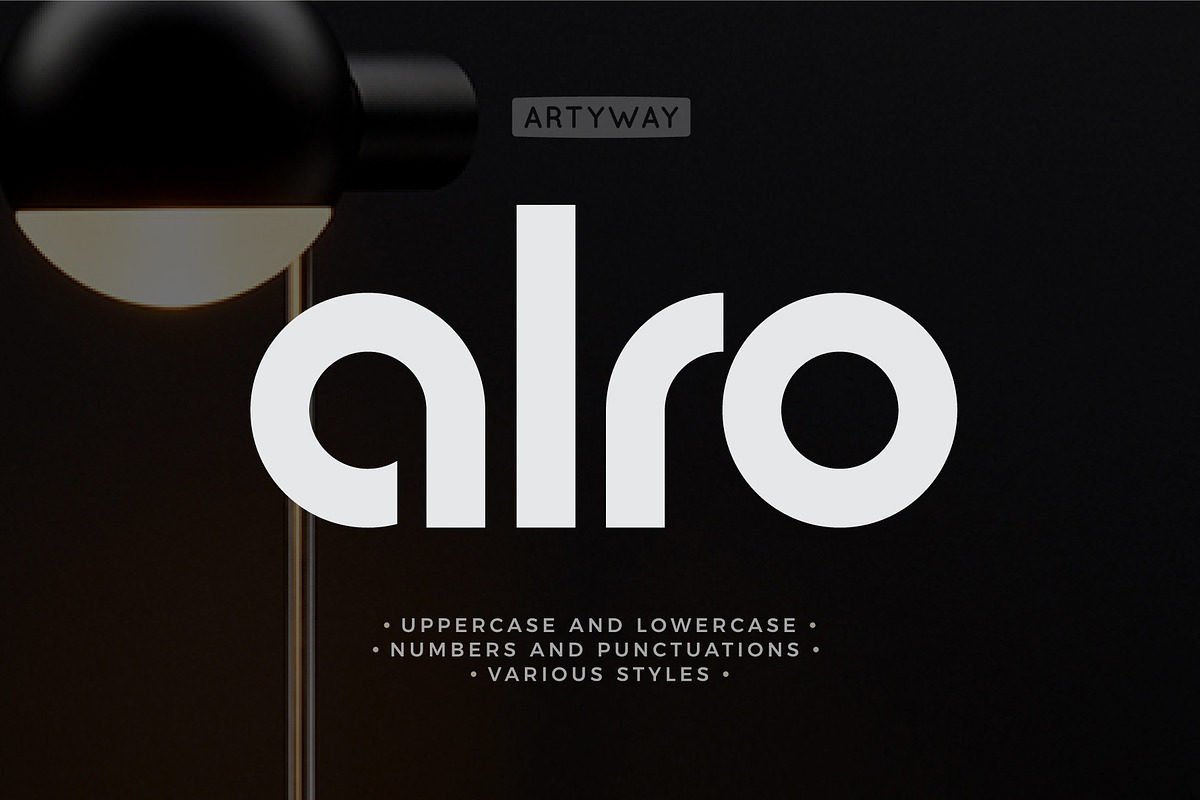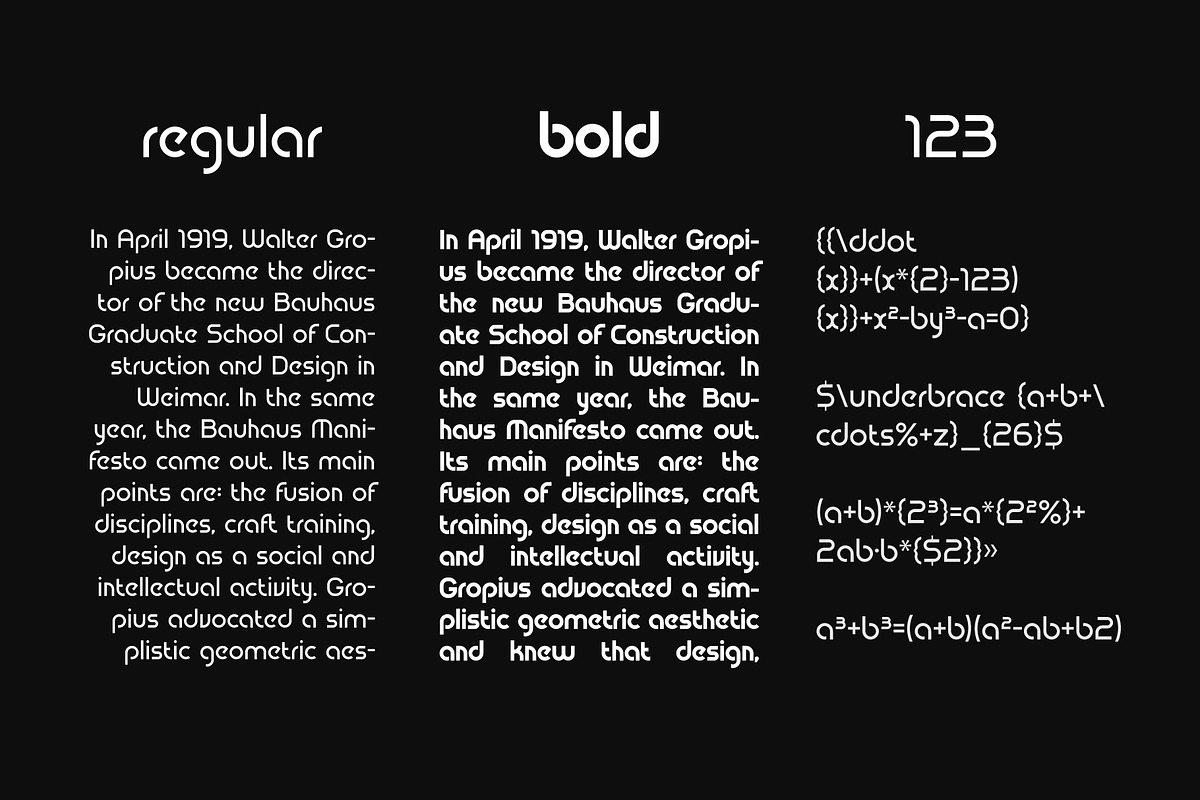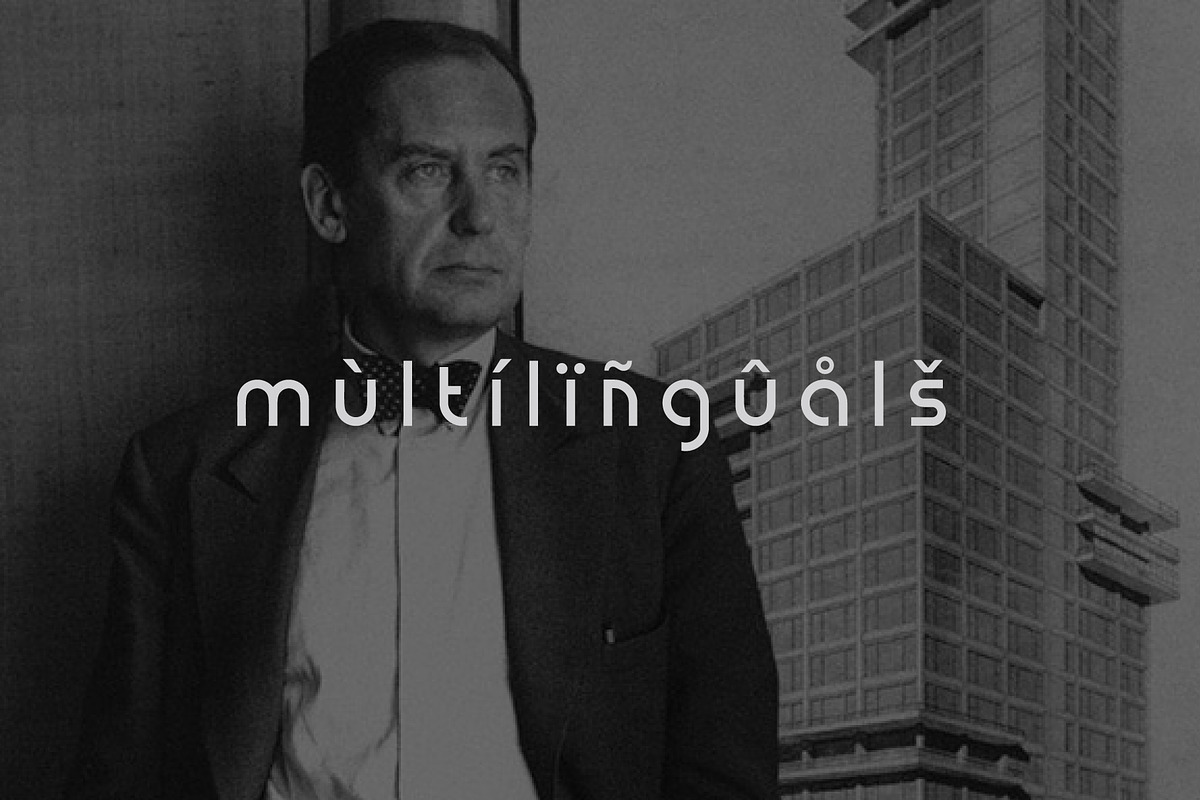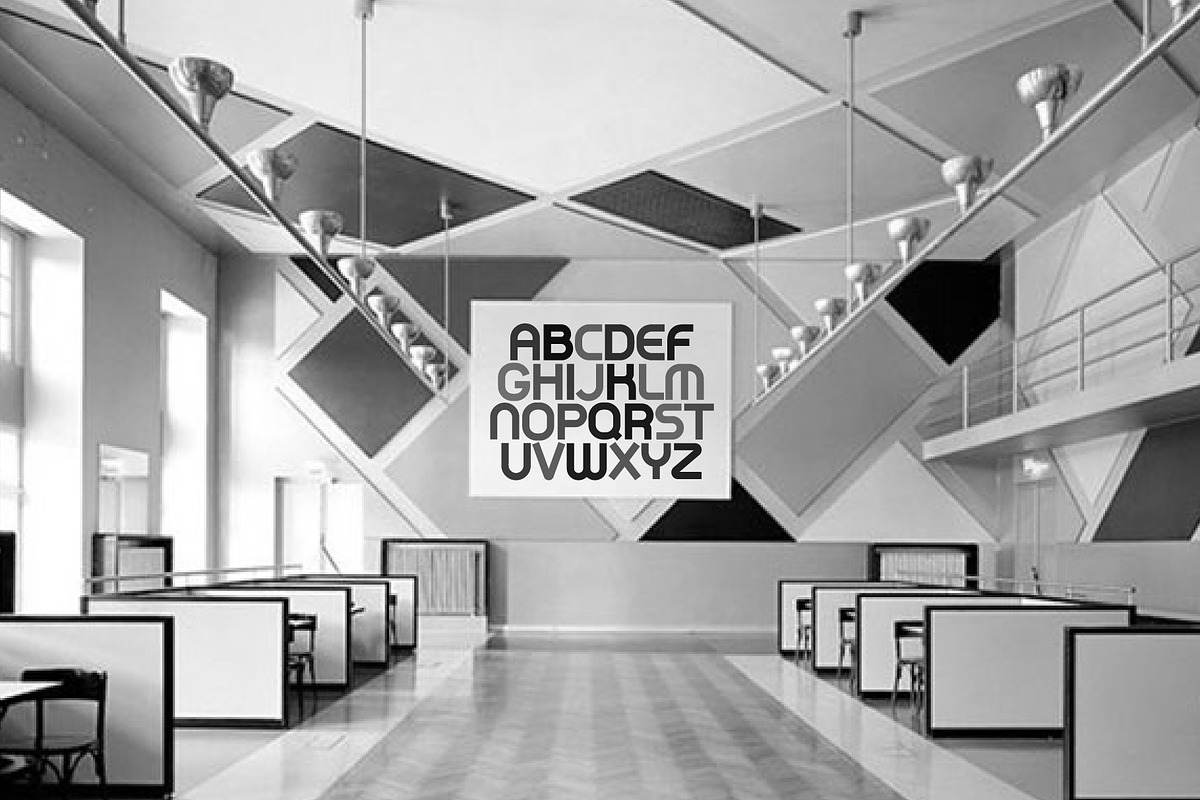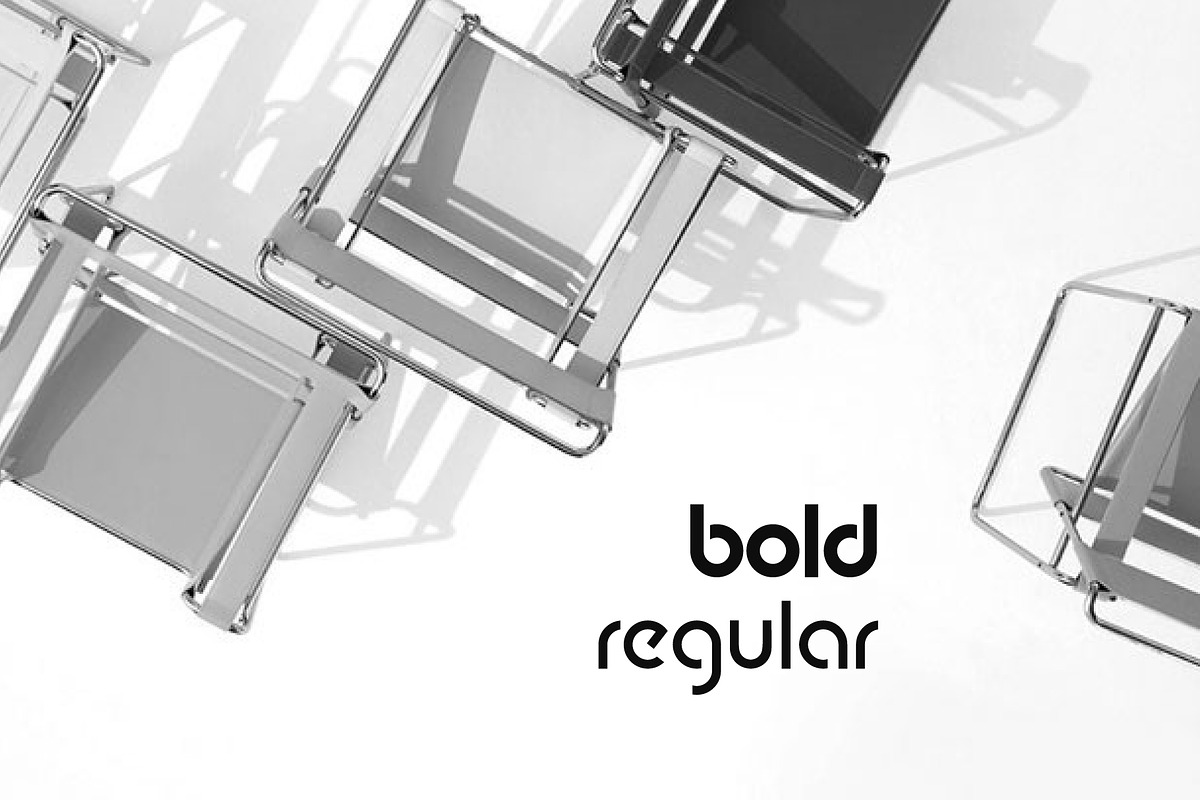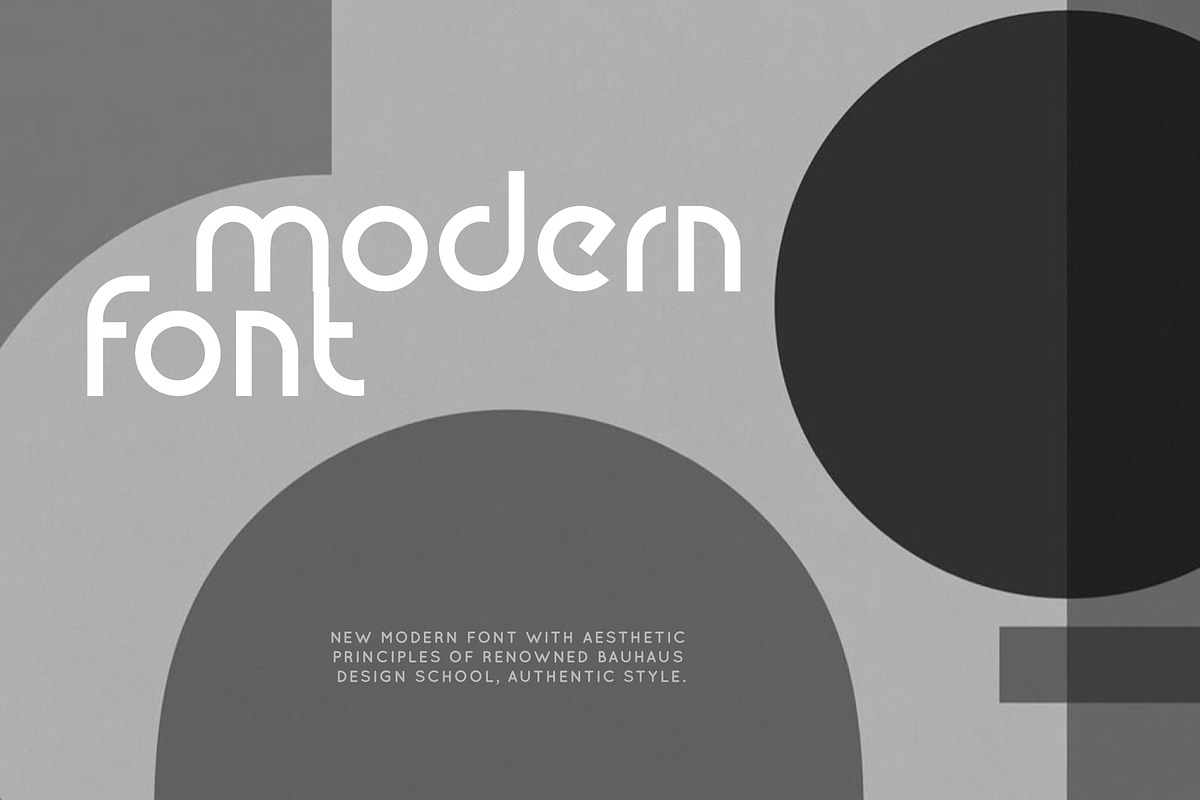
Alro Headline Font
Looking for the perfect rounded font for all your minimalist design concepts? Then grab this font with an elegant bauhaus style.
The font includes upper and lowercase letters with clean, rounded corners to instantly give designs that minimalist feel. You can quickly go from vintage to sci-fi in minutes. This minimal typeface comes in 2 styles that look amazing on body copy, logos, posters, headlines, books and magazine covers, brochures, as well as branding projects.
Use one or two fonts, to create something exciting!